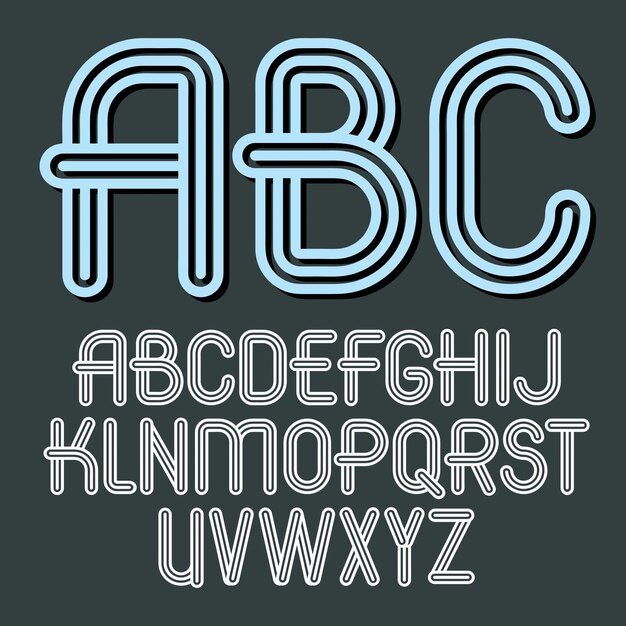
Vector capital modern alphabet letters, abc set. trendy font, script from a to z can be used in art poster creation. created using triple stripy, parallel lines.